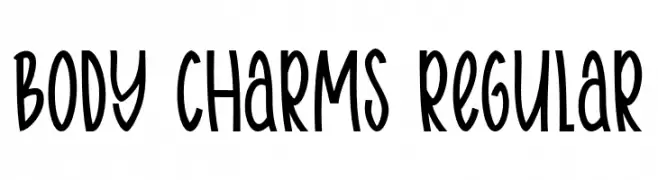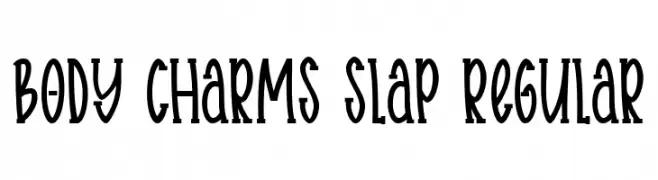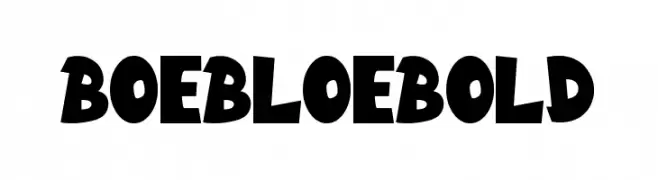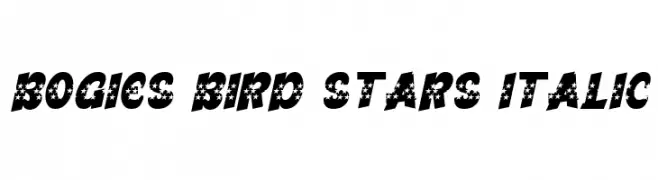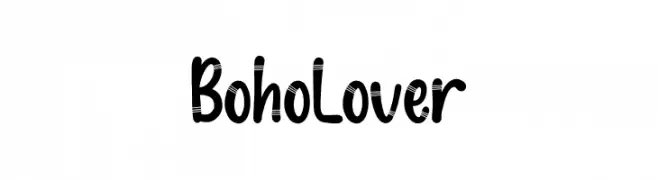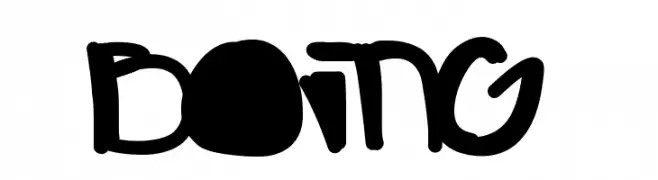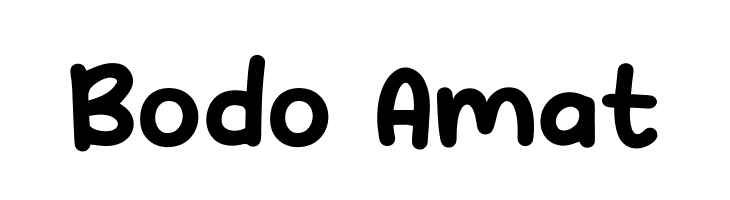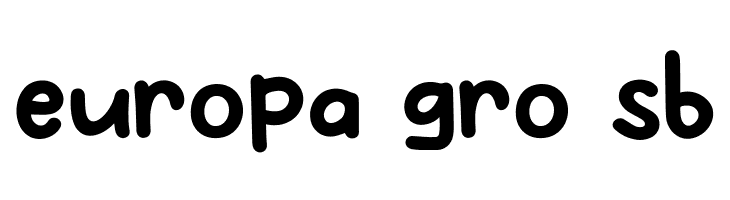
A playful, rounded font with a hand-drawn feel and consistent weight.
A playful, hand-drawn font with tall, narrow characters.
A playful, hand-drawn font with tall, narrow characters and a whimsical style.
A bold, playful font with thick, rounded characters and a whimsical style.
A bold, playful font with exaggerated curves and a whimsical style.
A bold, italic font with a dynamic, comic book style.
A bold, star-patterned decorative font ideal for creative projects.
A bold, italicized decorative font filled with star patterns, perfect for playful designs.
A playful, decorative font with bold, rounded characters and unique horizontal lines.
A playful, bold, hand-drawn font with thick, rounded strokes.